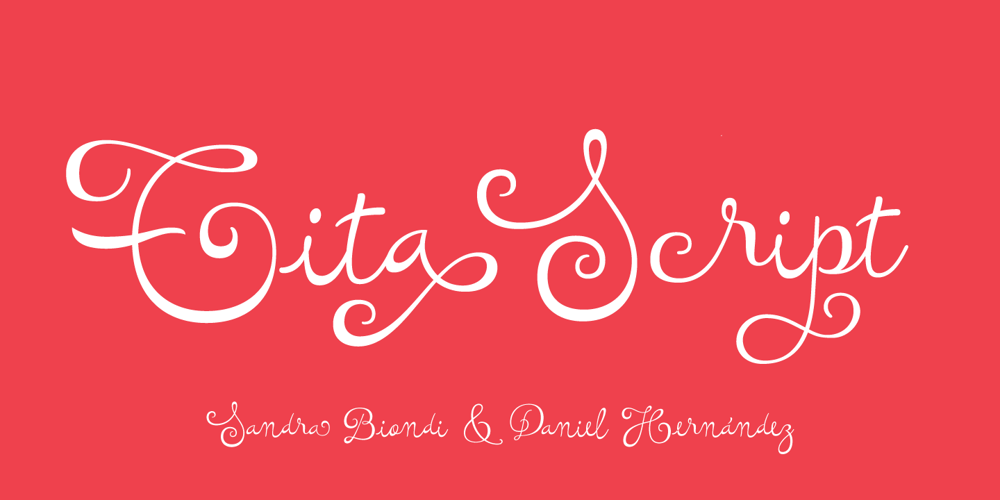
Tita Script
Tita Script font
Tita Script Font Family was designed by Daniel Hernández, Sandra Biondi and published by Latinotype. Tita Script contains 4 styles and family package options. Tita is dedicated to my grandmother Hebe, witty and arrabalera 1. The font is inspired by Milonga 2 music and the fileteado porteño 3. I picture it at The Moulin Rouge, sparkling, provocative, loving. It evokes Tita Merello and my grandmum singing her music. Tita is Argentinean to its very core. A font to shout goal and dulce de leche 4 with passion! Its curves originate from polirhythmic calligraphy, which I learnt from my mentor Silvia Cordero Vega. Tita is a pedigree script that is based on hand lettering and Sandra Biondi’s calligraphy works. Font digitalisation by Daniel Hernández. Edited by Javier Quintana / Programmed by Manuel Corradine. 1. A person from the arrabal (a working class neighborhood on the outskirts of the city of Buenos Aires) 2. Musical genre originated in the Río de la Plata areas of Argentina and Uruguay 3. Decorative hand lettering and artistic style that is frequently spotted in Buenos Aires 4. Sweet milk sauce